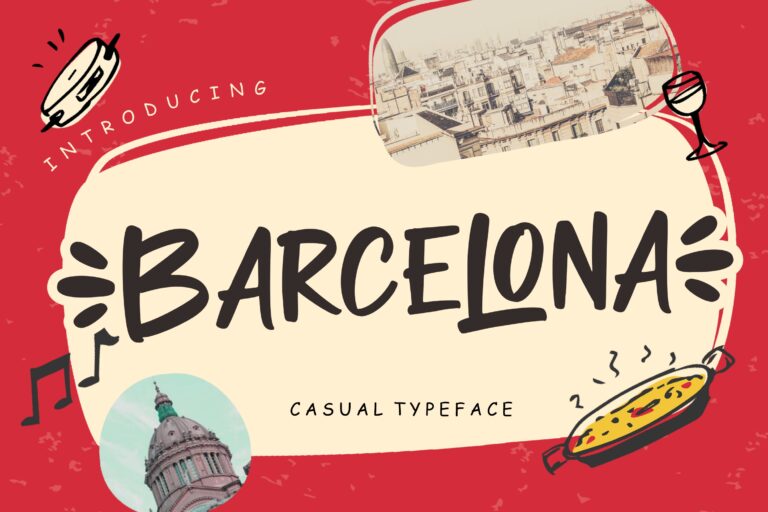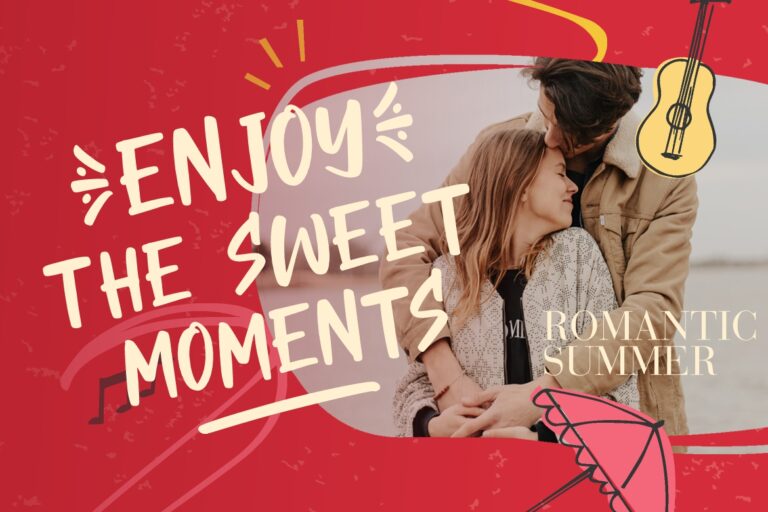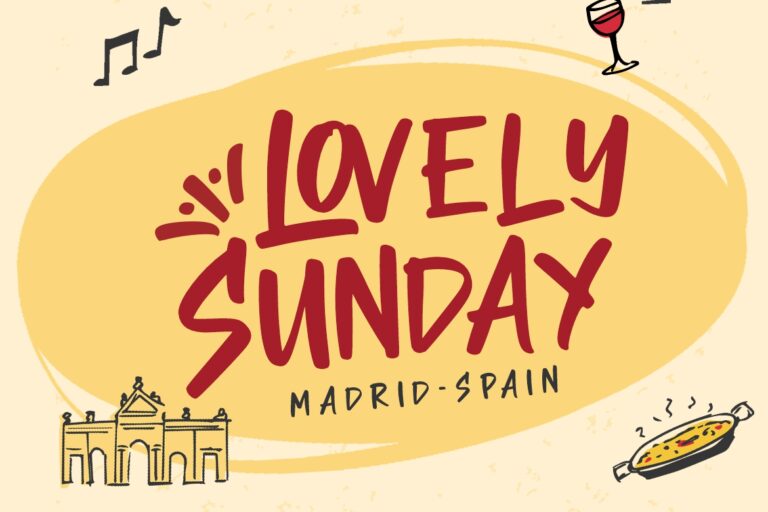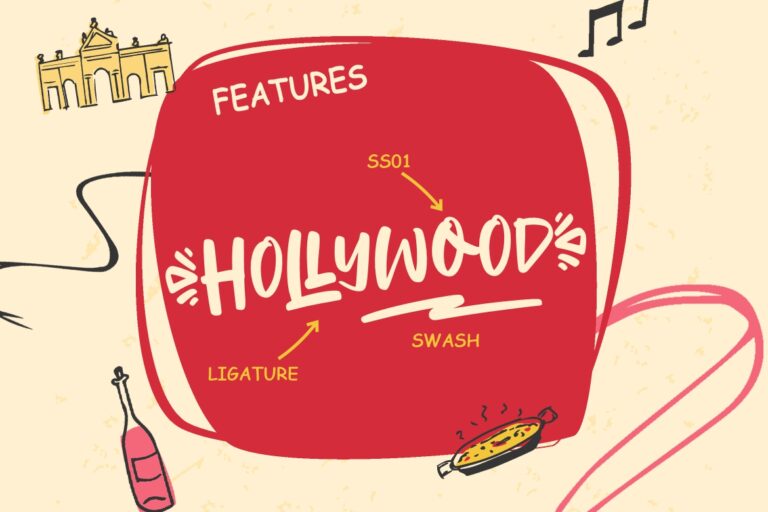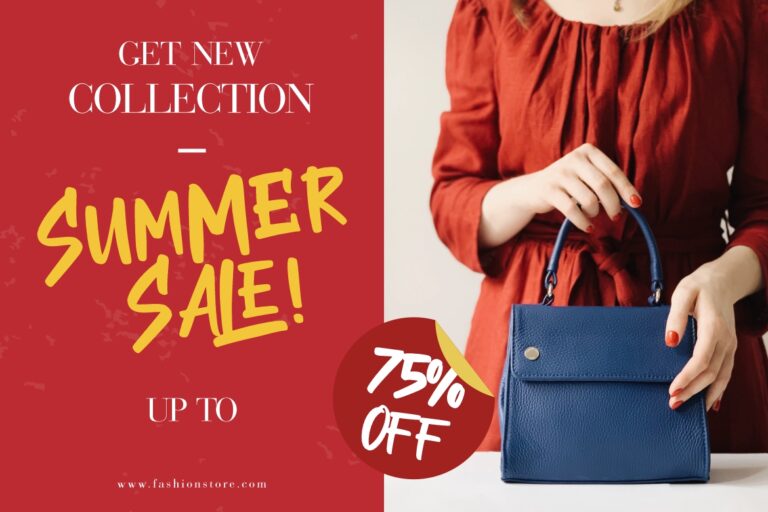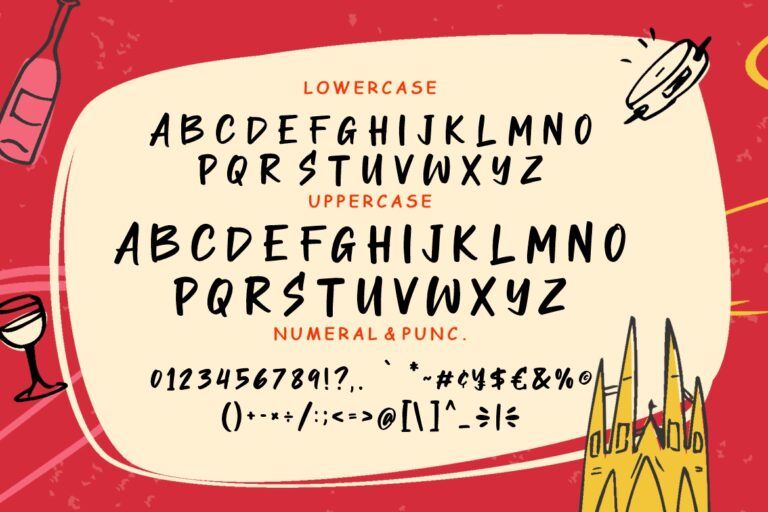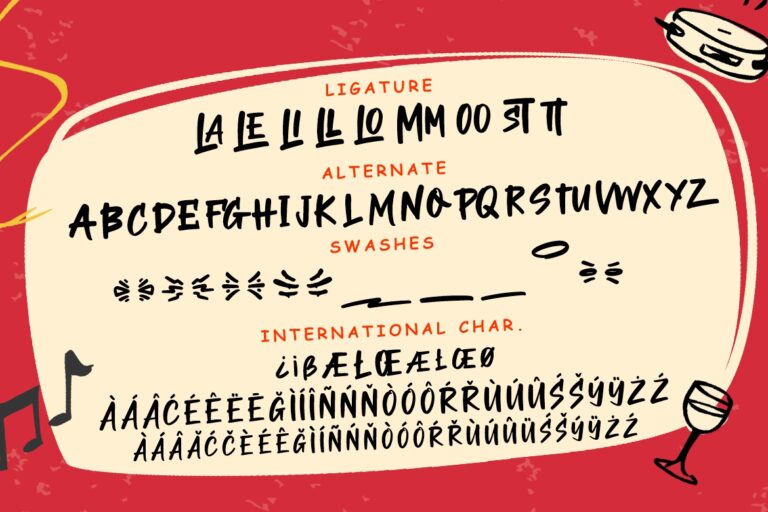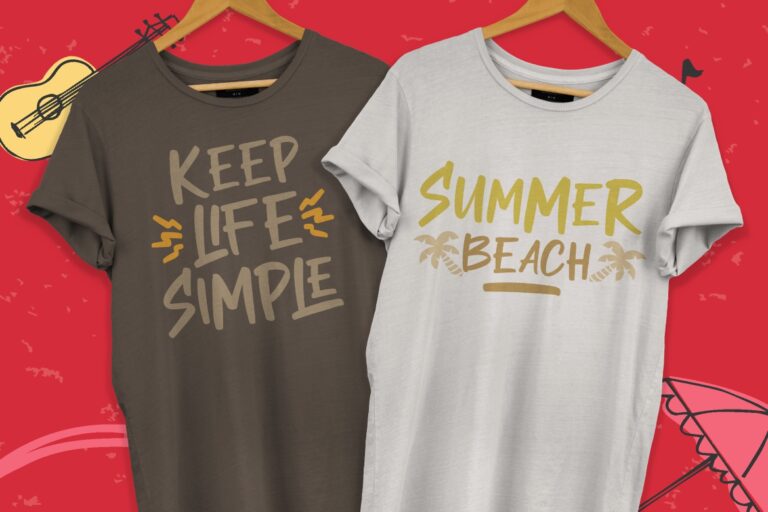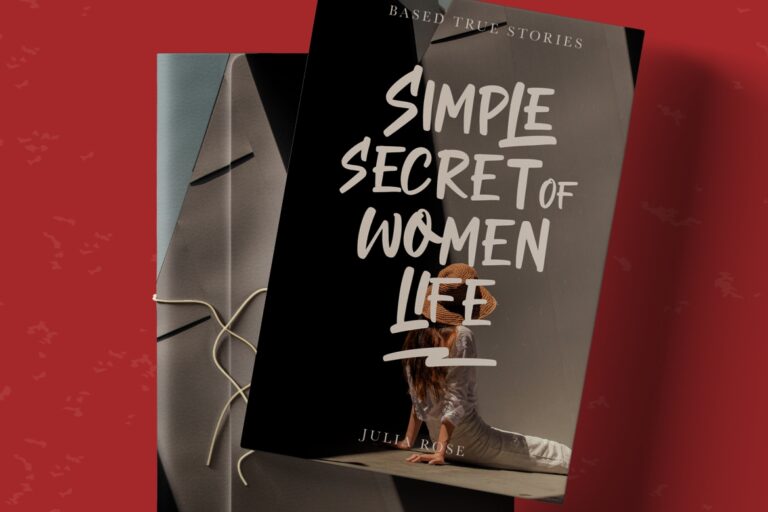
Barcelona is casual stylish hand-lettered font with fun & spontaneous style.
Barcelona would perfect for photography, watermark, social media posts, advertisements, logos & branding, invitation, product designs, label, stationery, wedding designs, product packaging, special events or anything that need handwriting taste.
- Ligature, Alternate & Swashes
Barcelona Casual Typeface